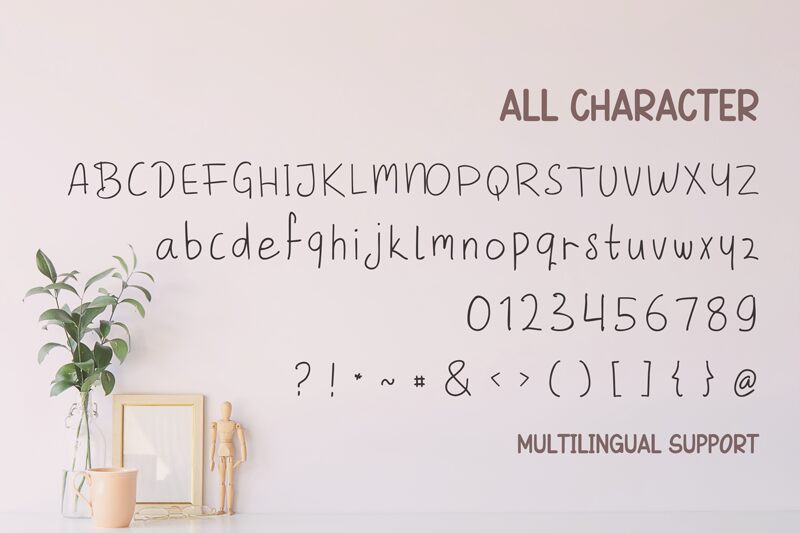
Falleave font is a light handwritten typeface created by Tigadestd with a casual, relaxed, and approachable style. The various characters present slight inclination, an original appearance of organic handwriting, and playful vibes. Whether you are creating physical or digital projects, this versatile free handwritten font will deliver the natural look you are after.
The modern look of this font makes it useful in packaging and branding designs. Use it on T-shirts, hoodies, bookmarks, greeting cards, invitation cards, thank you notes; in other printed medium ideas like banners or menu covers; or on your blog images and logo ideas.